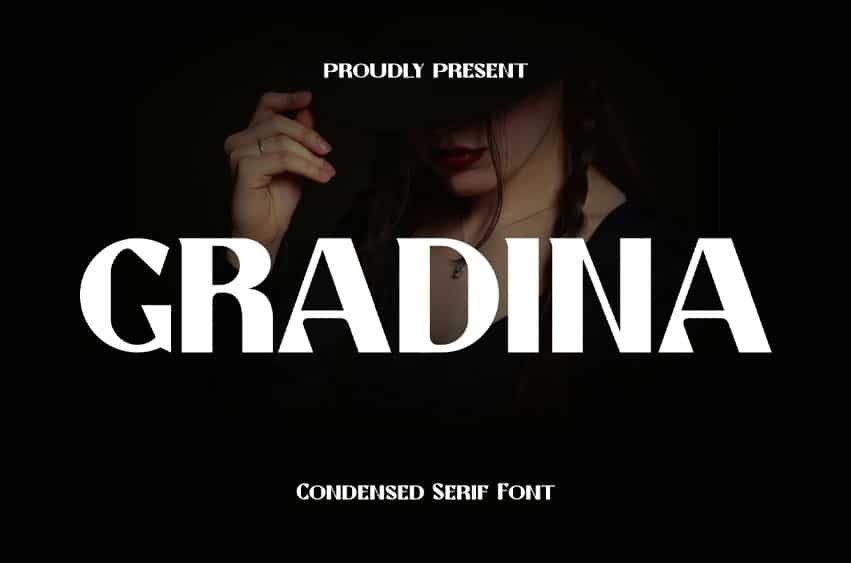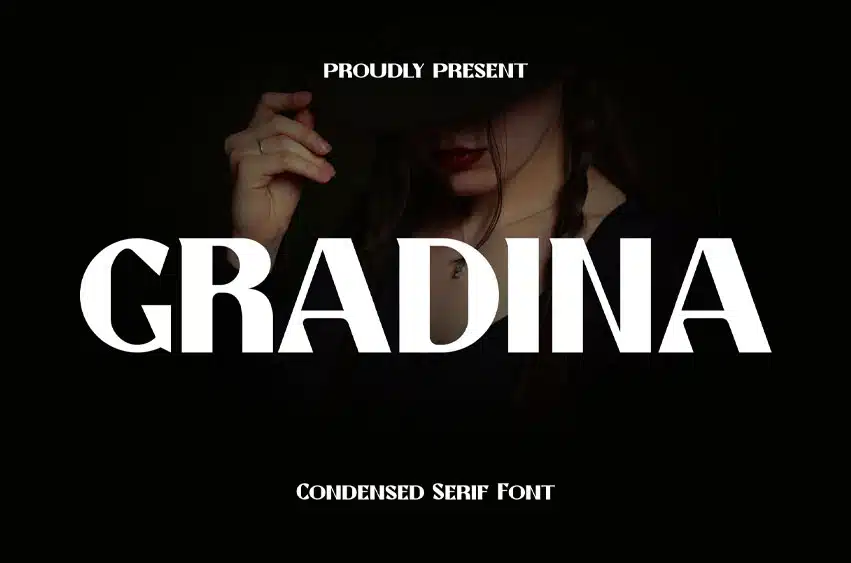
Gradina Font is a super thick typeface with more traditional letter shapes, making it perfect for creating (or recreating) the concise look of film poster production credits.